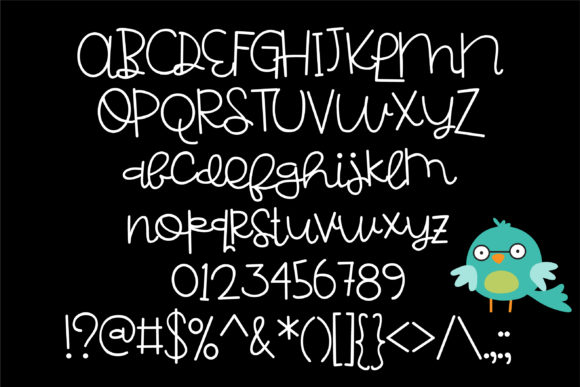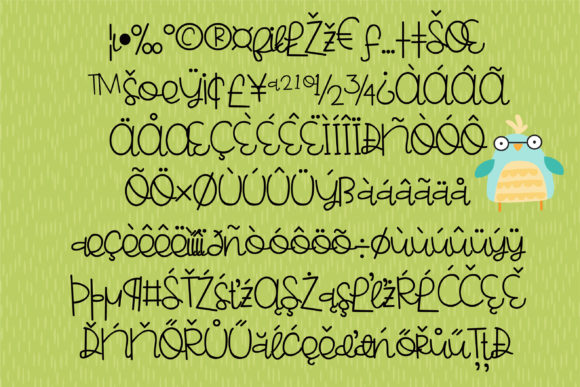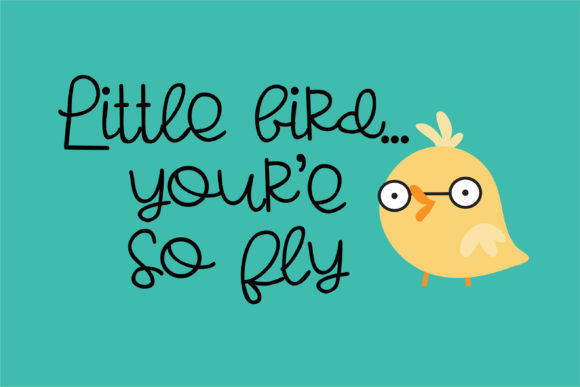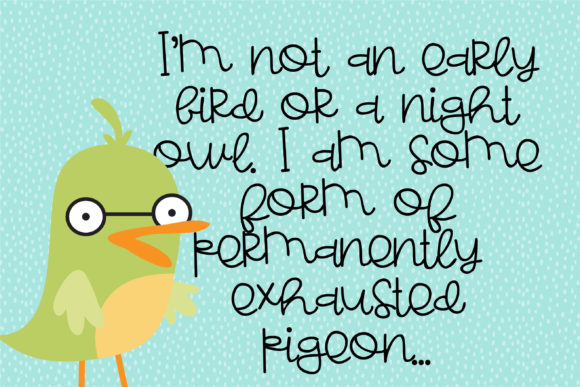
Unleash Your Creativity with the Clackulator Font
You know that moment when you’re brainstorming ideas, and suddenly, the perfect font pops into your head? It’s like a lightbulb moment, and you just can’t wait to bring your vision to life. For designers, finding the right font can be a game-changer, setting the tone for an entire project. That’s where the Clackulator Font comes in – a lovely handwritten font that exudes authentic charm and whimsy.
Clackulator Font is designed to inspire creativity and add a touch of personality to your designs. Whether you’re working on a branding project, creating a social media campaign, or crafting a beautiful blog post, this font is sure to bring a smile to your face. As a designer, you know how valuable it is to have a versatile font that can adapt to different styles and moods. The Clackulator Font is that perfect companion, offering a unique and authentic feel that will elevate your designs to the next level.
Clackulator Font Key Features
- Unique Typographic Style: Clackulator Font features a distinctive, playful design with a blend of modern and retro elements, making it suitable for creative projects.
- Character Set: Includes a wide range of characters, including uppercase and lowercase letters, numbers, punctuation marks, and special symbols.
Designer Review: Clackulator Font
The Clackulator Font is a fun, quirky addition to any digital project. ✨ Its unique blend of geometric shapes and playful letterforms is sure to add a touch of whimsy to your design. The font is also highly legible, making it suitable for body text as well as headings.
One of the standout features of the Clackulator Font is its extensive character set. ✨ The font includes a wide range of punctuation marks, ligatures, and even some fun alternate characters that can be used to add some extra personality to your design.
- Unique and playful design style
- Highly legible for both body text and headings
- Extensive character set with fun alternate characters
- Works well in digital and print applications
- May not be suitable for formal or professional projects
- Some characters may not be as well-spaced as others
- May not be as versatile as more traditional fonts
- Requires some creative experimentation to get the most out of the font
Overall, the Clackulator Font is a great choice for designers looking to add some personality and whimsy to their projects. While it may have some limitations, the font’s unique design style and extensive character set make it a valuable addition to any designer’s toolkit. ⚠️ Just be sure to use it in the right context and experiment with its features to get the most out of it.
Clackulator Font is ideal for:
- Creating playful and whimsical designs.
- Adding a touch of nostalgia to modern designs.
- Designing children’s educational materials and games.